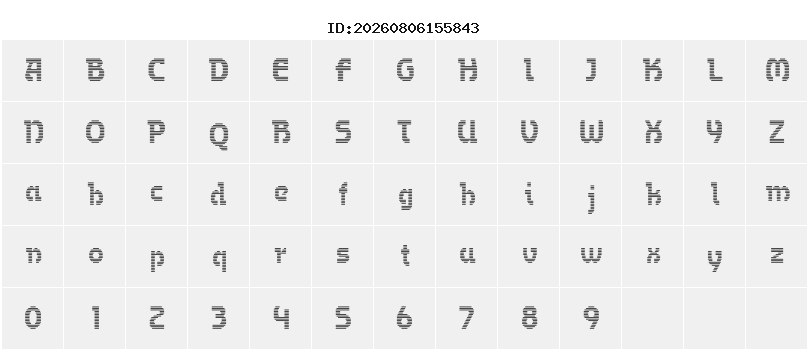
Omega MF Preview
• Font Name: Omega MF
About Omega MF.ttf
Omega MF.ttf is a modern, elegant sans-serif font designed for ultimate readability and visual harmony. Perfect for branding, headlines, web design, and print materials.